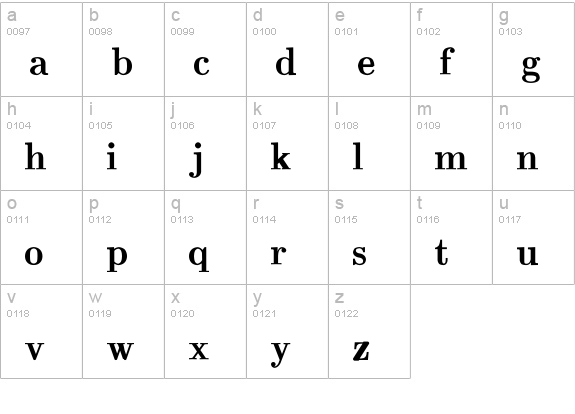
CM_Roman Bold is a strong, high-contrast variant in the CM_Roman typeface family \xE2\x80\x94 well suited to headlines, attention-grabbing titles, and strong calls-to-action.
Introducing CM_Roman Bold font, a bold and impactful typeface that commands attention with its strong and assertive presence. The thick strokes and sharp angles of this font make it perfect for headlines, titles, and other display purposes where you want to make a statement. This versatile font is well-suited for a variety of design projects, from posters and banners to logos and branding materials. The classic Roman style adds a touch of sophistication and elegance to any text, making it a go-to choice for designers looking to convey a sense of authority and reliability. Best of all, CM_Roman Bold font is completely free to download at FontsMarket.com. Whether you're a professional designer or just starting out, this font offers high quality and style without any cost. Don't miss out on the opportunity to enhance your projects with this timeless and impactful typeface.